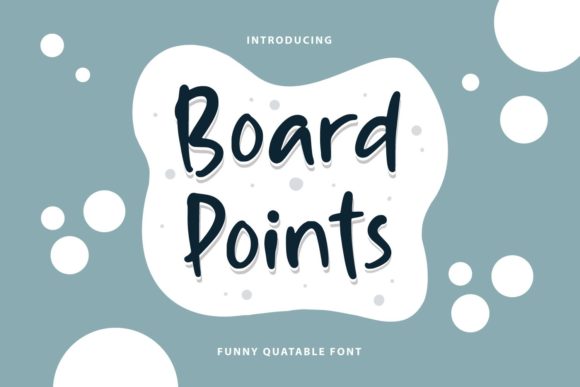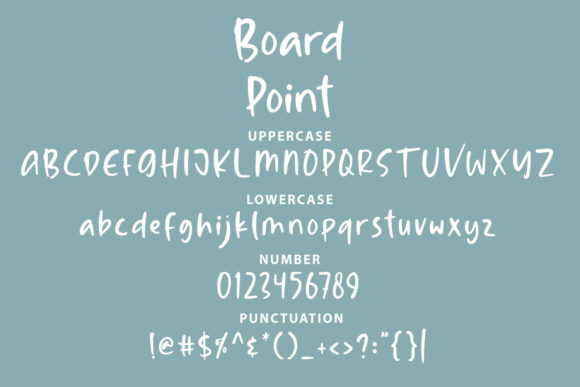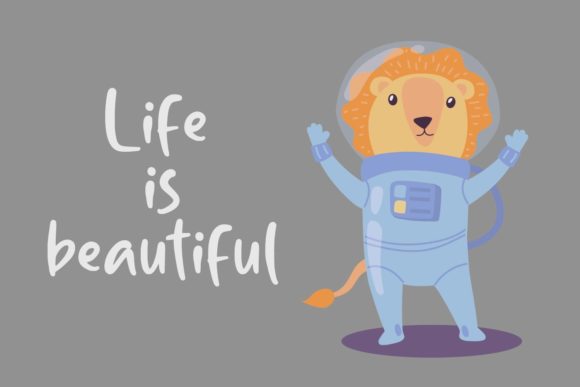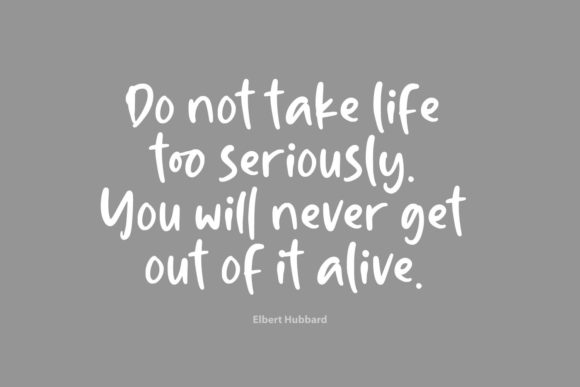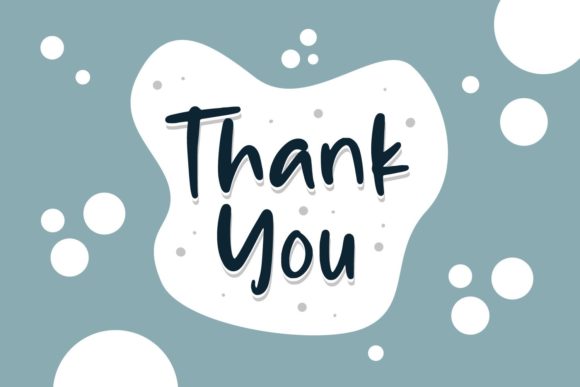
Board Points Font
About Board Points Font
Board Points embodies fun, quirkiness and authenticity. This enchanting handwritten font will turn any creative idea into a true standout.